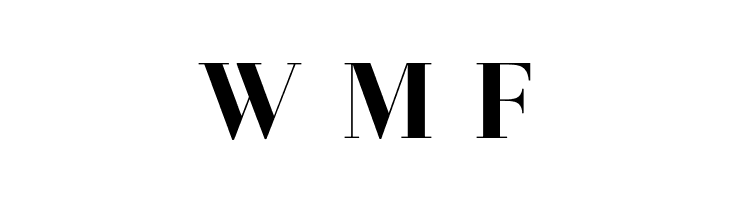
DaysSansBlack Font
A bold, strong font with thick strokes and a robust appearance.
Astakhov First Simple Font
A bold, impactful font with clean lines and strong presence.
JWH Font
A classic serif font with high contrast and elegant strokes.
Runic Font
A decorative font inspired by ancient runic alphabets with angular, geometric shapes.
Pepsi Cyr-Lat Font
A bold, modern font with geometric influences and a sleek, streamlined appearance.
Tempora LGC Unicode Font
A classic serif font with elegant curves and strong presence.
Tempora LGC Unicode Bold Font
A bold, classic serif font with strong strokes and balanced contrast.
Tempora LGC Unicode Bold Italic Font
A bold, italic serif font with elegant, slanted letterforms.
Karmina Bold Font
A tall, narrow font with rounded edges and even spacing.
Astakhov First One Stripe Font
A bold, modern sans-serif font with thick, uniform strokes and slightly condensed letterforms.
Runic Alt Font
A runic-inspired font with angular, geometric characters and a mystical aesthetic.
Astakhov First Simple Chaos! Font
A bold, dynamic font with a mix of solid and outlined characters, perfect for impactful designs.
Astakhov First Simple F Font
A bold, sans-serif font with a modern and impactful design.
Tempora LGC Unicode Italic Font
An elegant, italic serif font with classic and sophisticated styling.
Astakhov First Two Stripes Font
Bold, geometric, and condensed font with a modern style.
Circles_New Font
A bold, geometric font with characters formed from circular shapes, offering a modern and abstract look.
Astakhov First Simple S Font